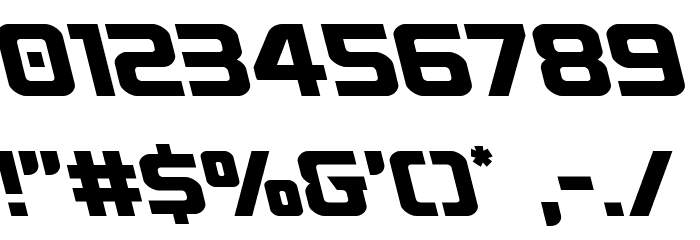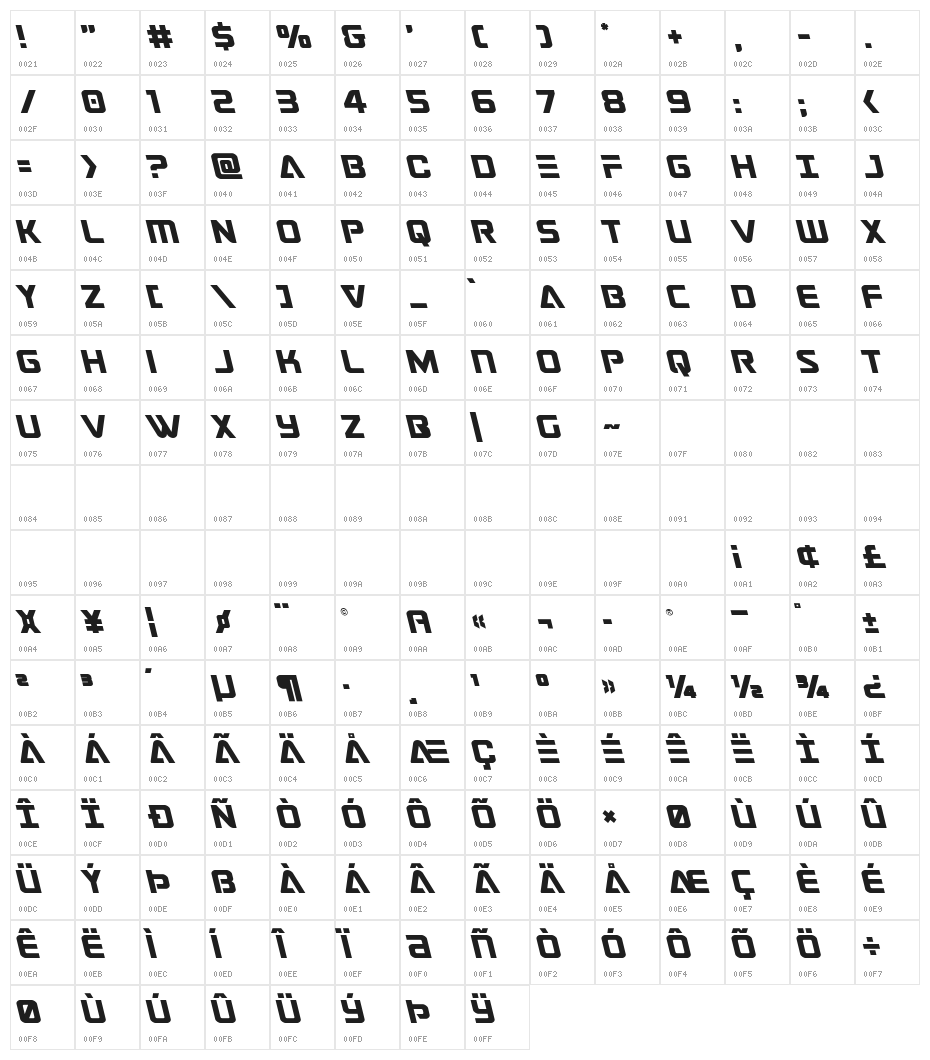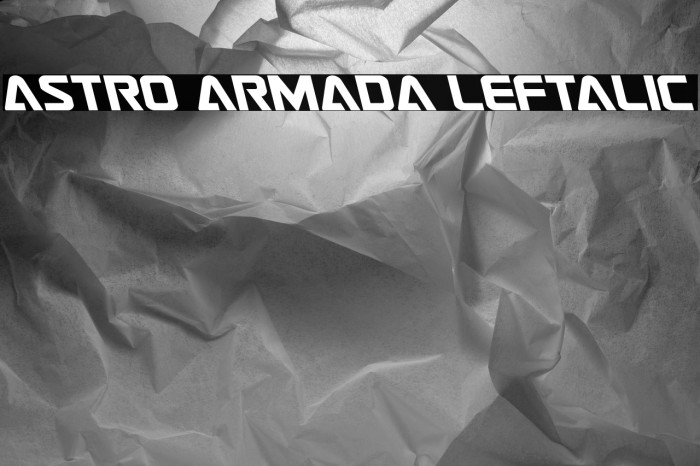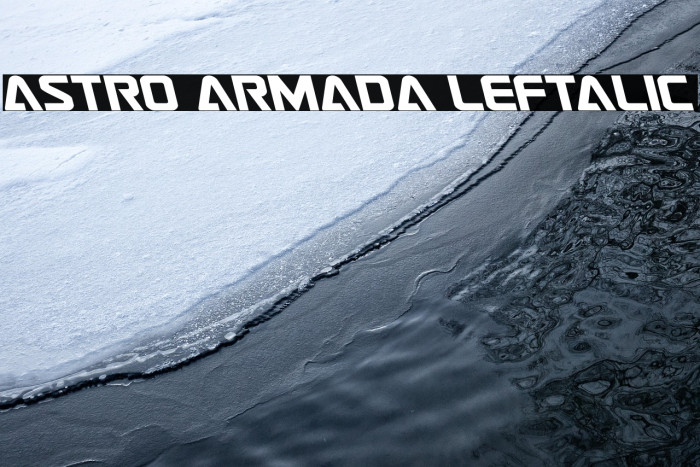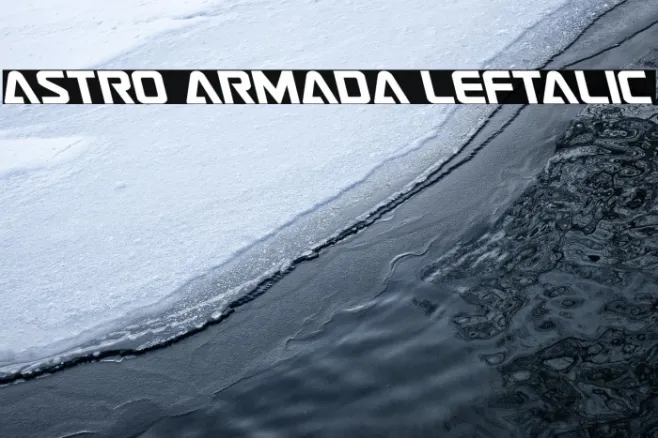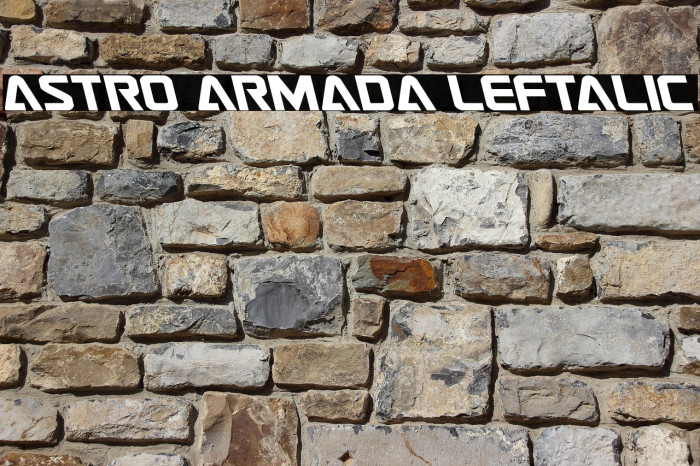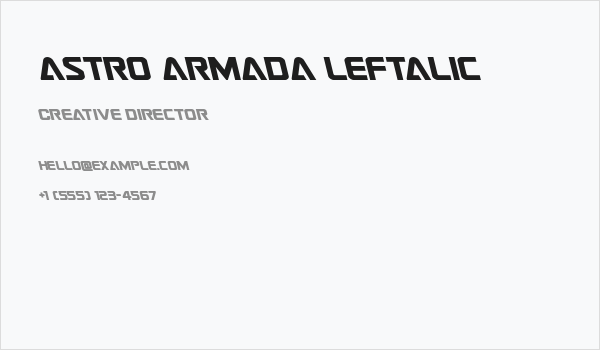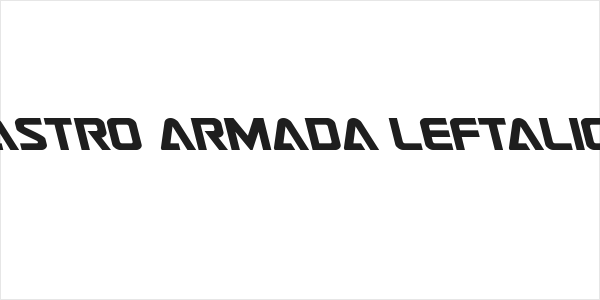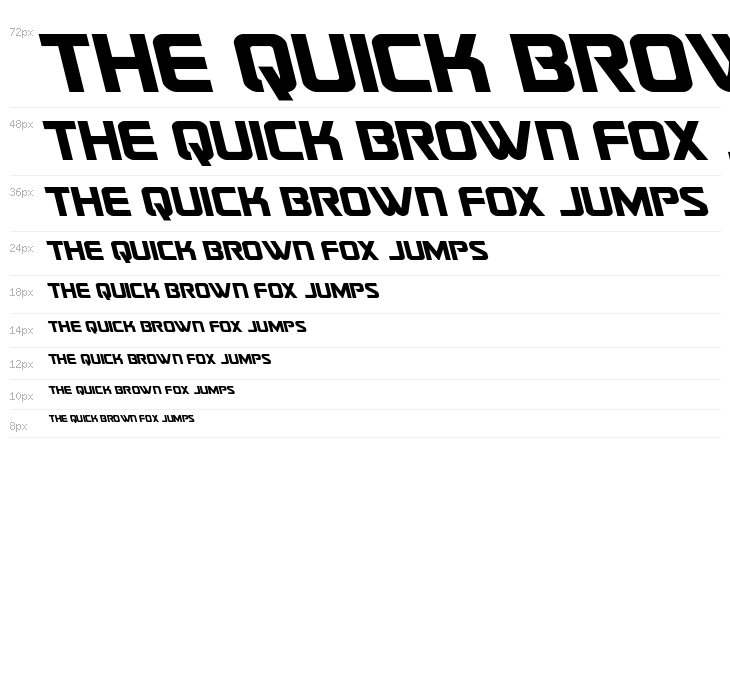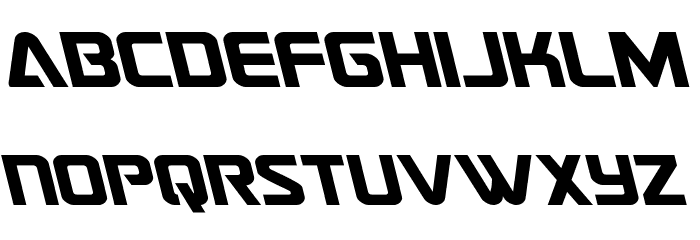
Astro Armada Leftalic Font
Astro Armada Leftalic Description
This font features a futuristic and angular design, characterized by its bold and geometric letterforms. The characters have a distinct slant, giving them a dynamic and forward-moving appearance. The strokes are thick and consistent, with minimal contrast, creating a strong and impactful visual presence. The overall style is modern and tech-inspired, suitable for projects that require a cutting-edge and innovative look. The spacing between characters is tight, enhancing the compact and cohesive feel of the text.
Proposed ProjectsIdeal for technology branding, sci-fi movie posters, video game titles, and futuristic product packaging.